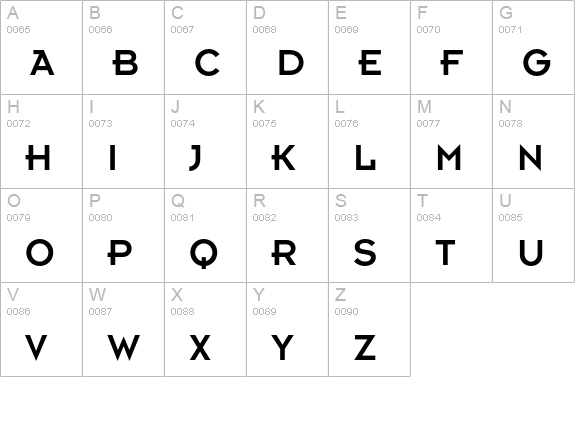
Introducing Insignia font, a captivating typeface that combines modern elegance with timeless charm. With its sleek lines and sophisticated curves, Insignia effortlessly captures attention and adds a touch of refinement to any design project. This versatile font is perfect for various purposes, from branding and logo design to editorial layouts and web graphics. Its clean and legible characters make it ideal for both headlines and body text, ensuring readability across different media. But what makes Insignia font truly remarkable is that it is not only visually stunning but also free to download! Yes, you read that right. Insignia font is freely available to download at FontsMarket.com, making it accessible to designers, creatives, and enthusiasts alike. Whether you're a professional designer looking to elevate your work or a hobbyist seeking a unique and stylish font, Insignia is the perfect choice. Its versatility, elegance, and the fact that it is freely accessible make it an invaluable addition to any font library. So, don't miss out on the opportunity to enhance your designs with this exceptional font. Get ready to make a statement with Insignia font and let your creativity shine. Download it now, completely free, at FontsMarket.com and embark on a journey of limitless design possibilities.